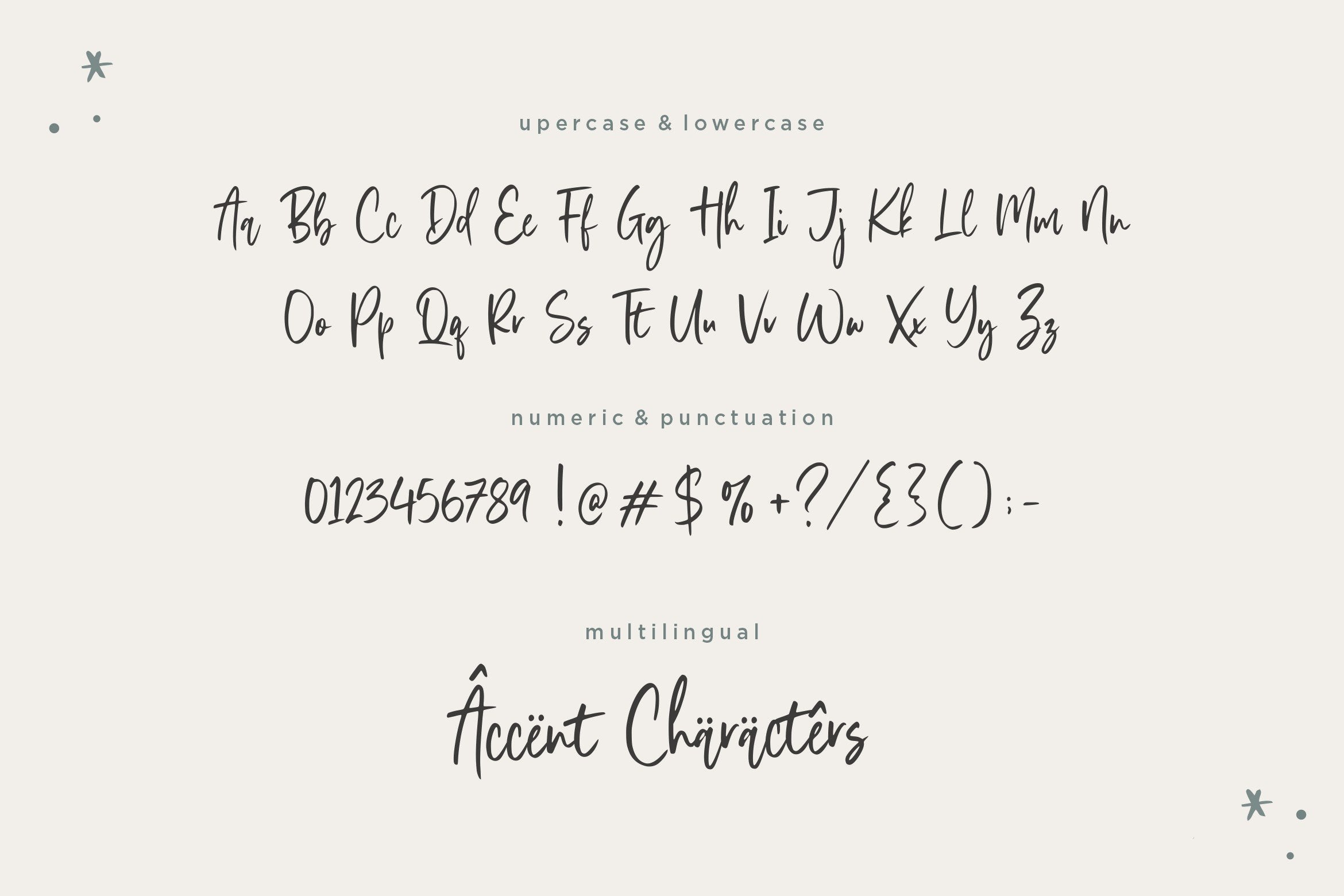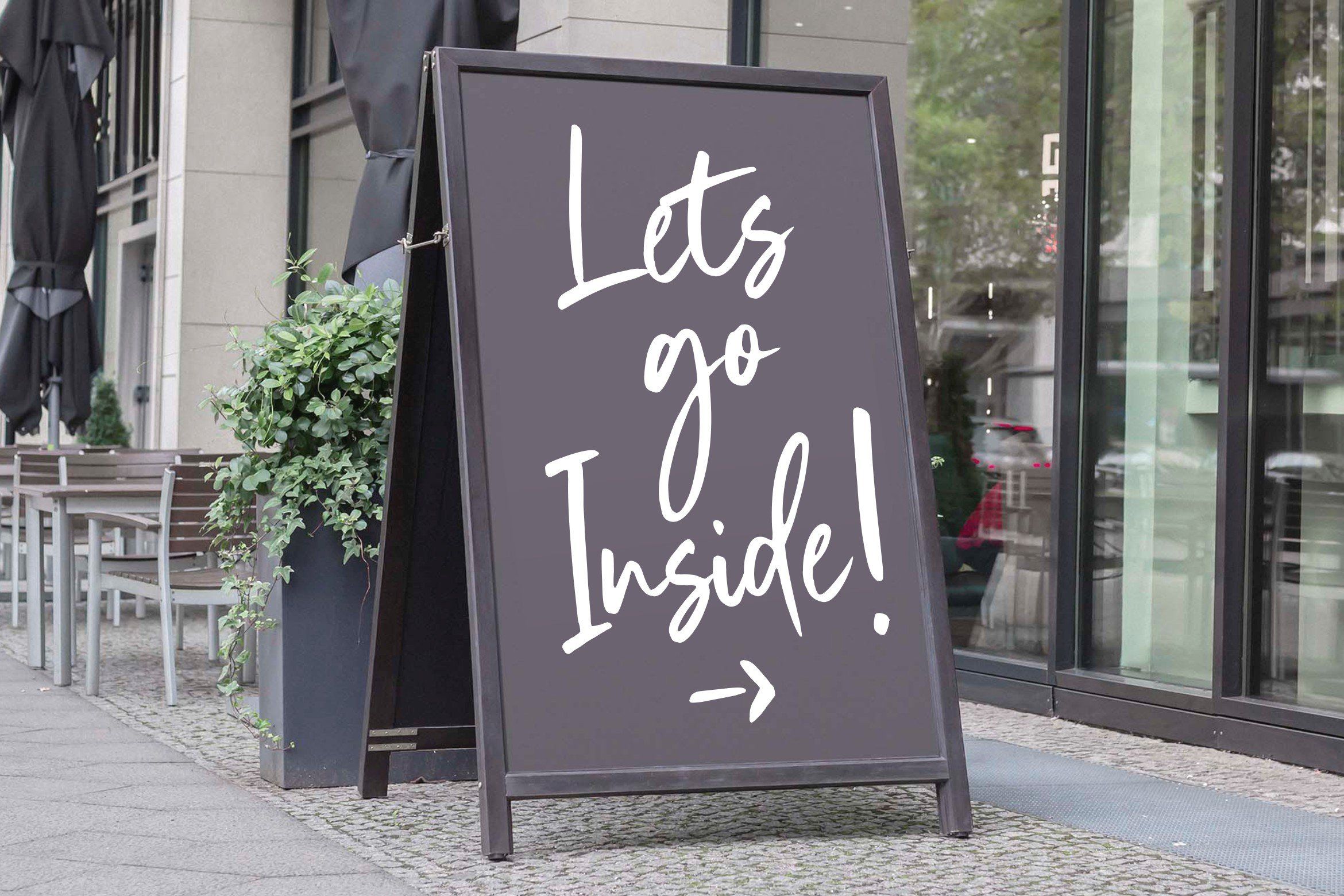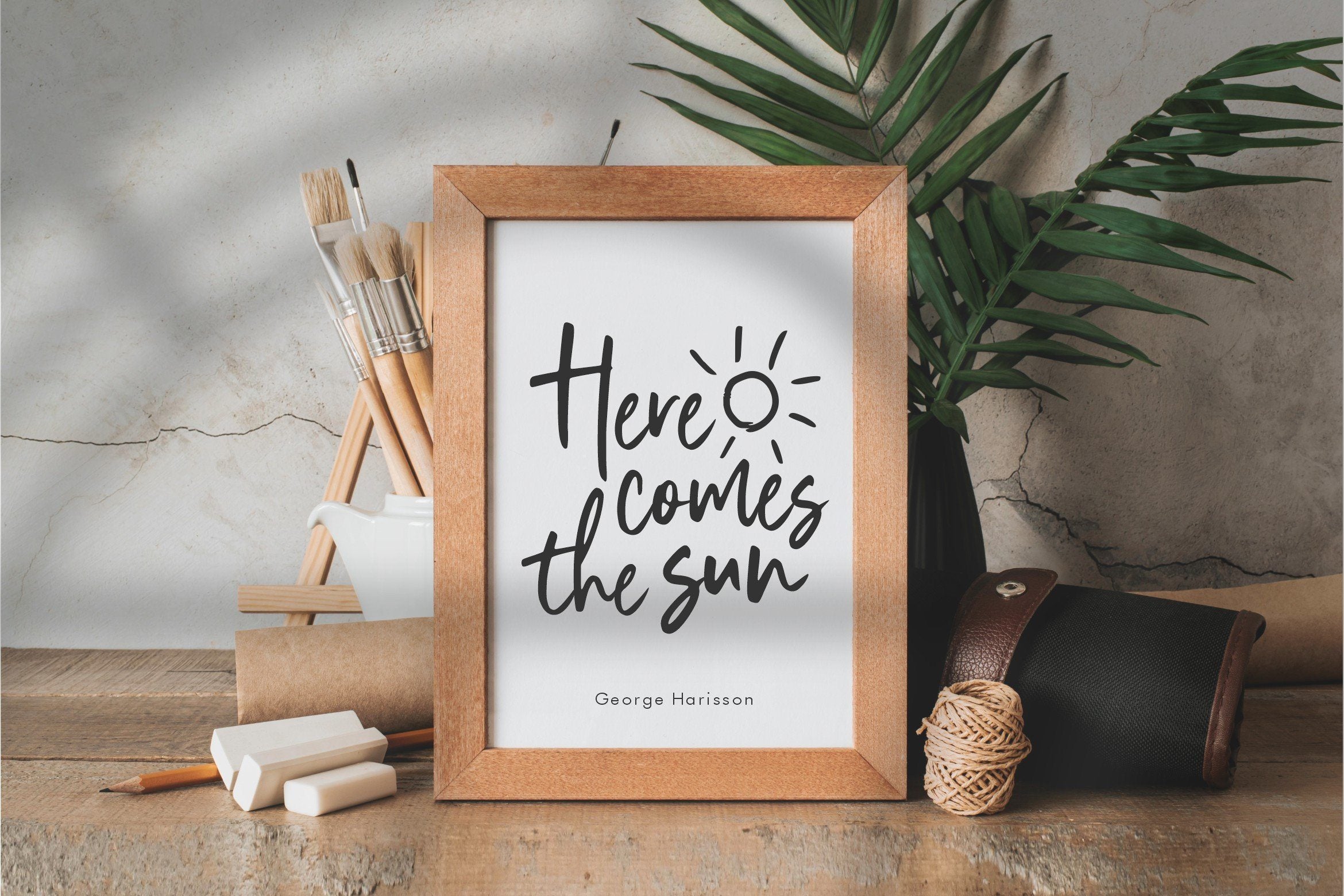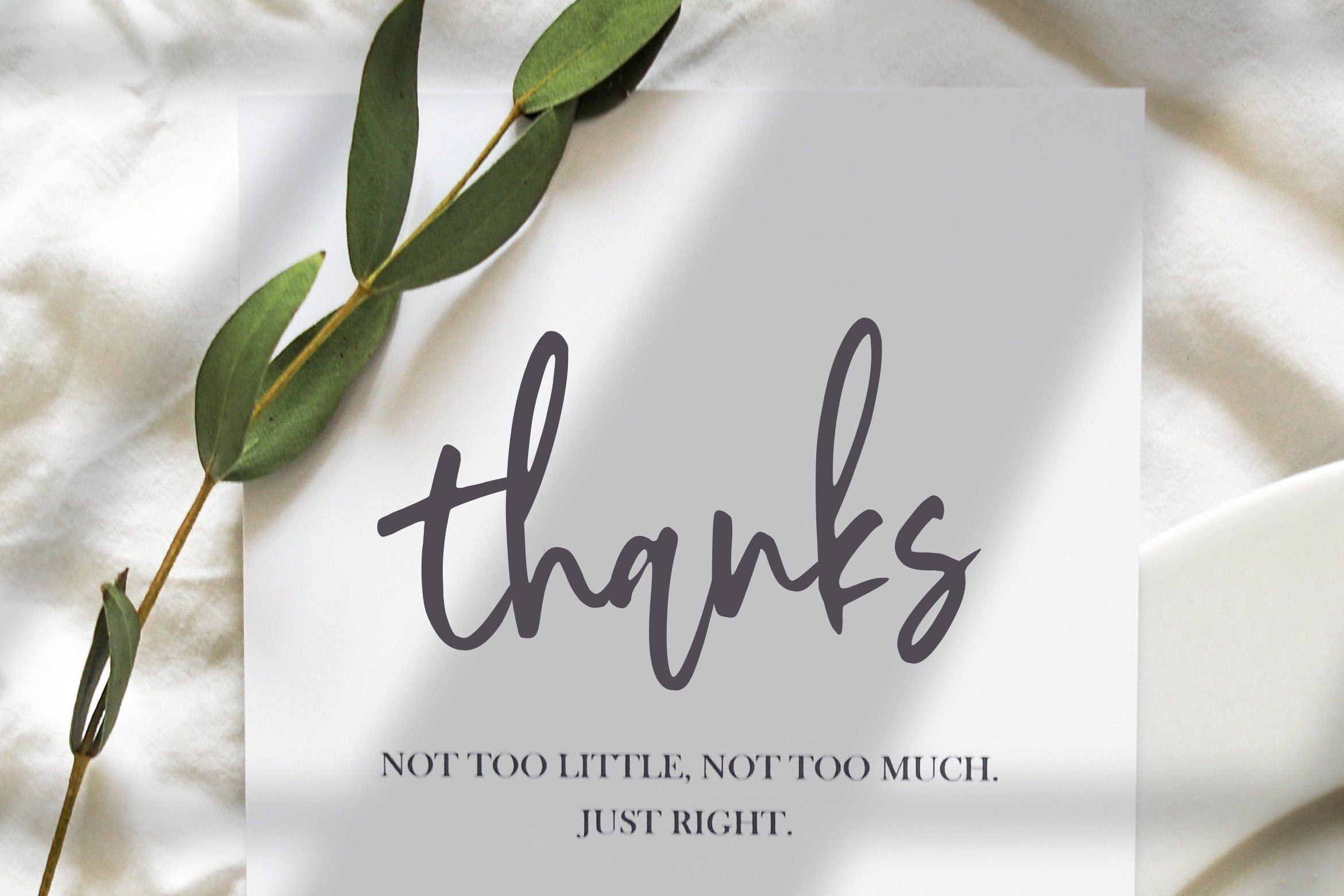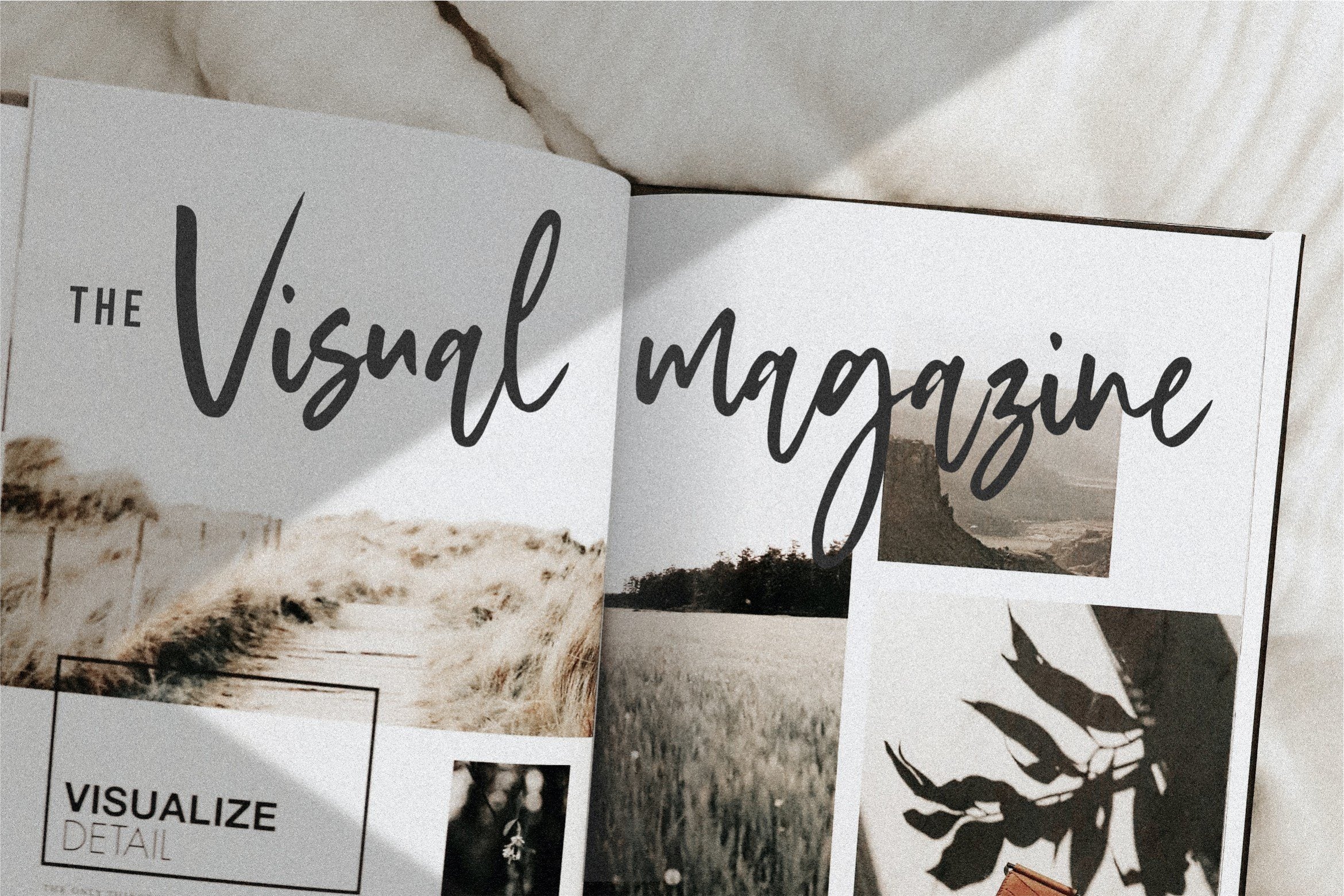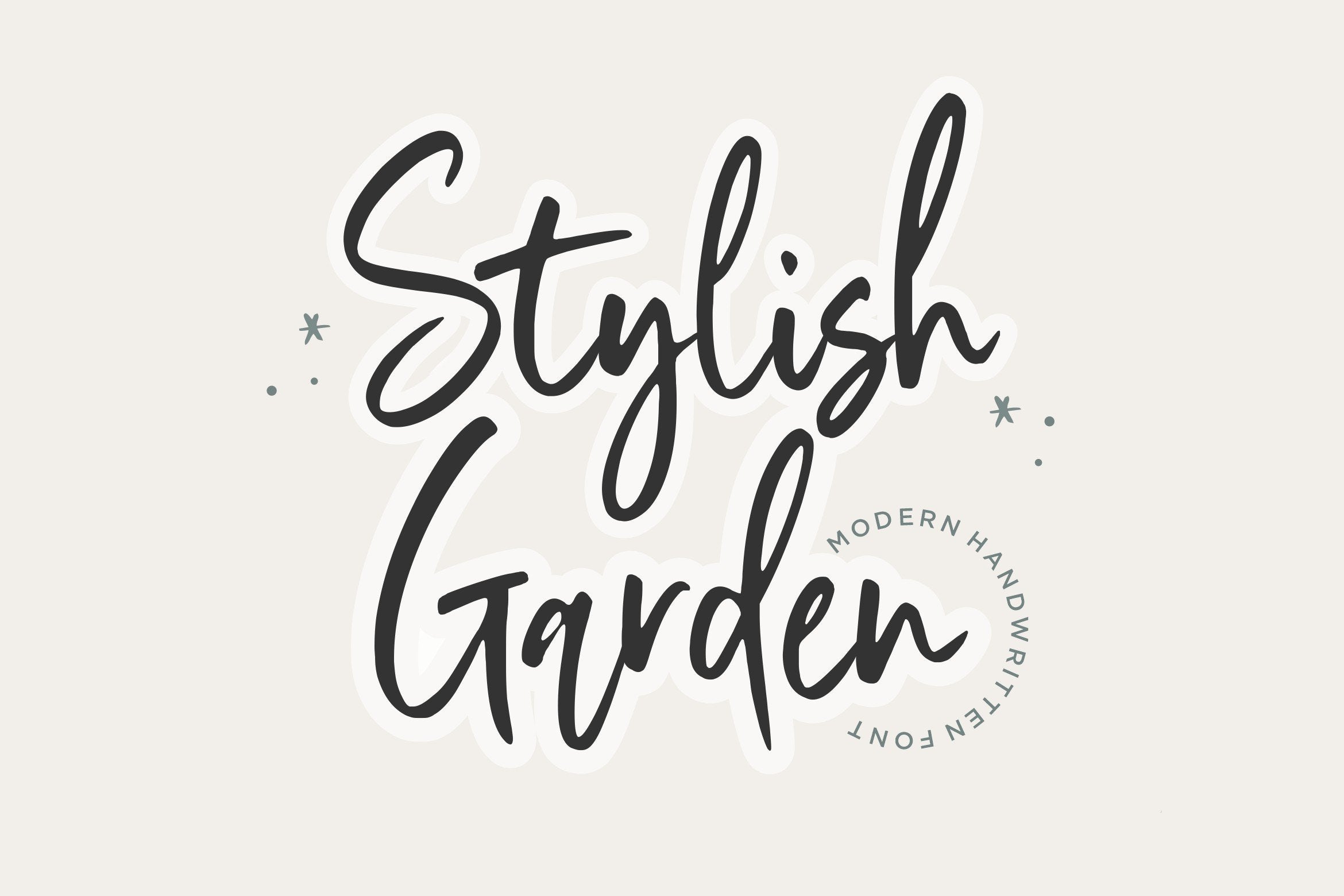
Stylist Garden Modern Handwritten Font
About Stylist Garden Modern Handwritten Font
Introducing by Balpirick Studio. Proudly Present, Stylist Garden Font. Stylist Garden is a Modern Handwritten Font. Stylist Garden is an exquisite handwritten font, masterfully designed to become a true favorite. It maintains its classy calligraphic influences while feeling contemporary and fresh. Fall in love with it and bring your projects to the highest levels! This font includes TTF, OTF and WOFF, Stylist Garden also multilingual support. Enjoy the font, feel free to comment or feedback, send me PM or email. Thank you!